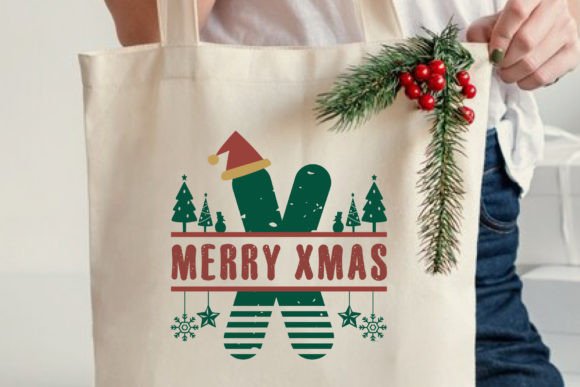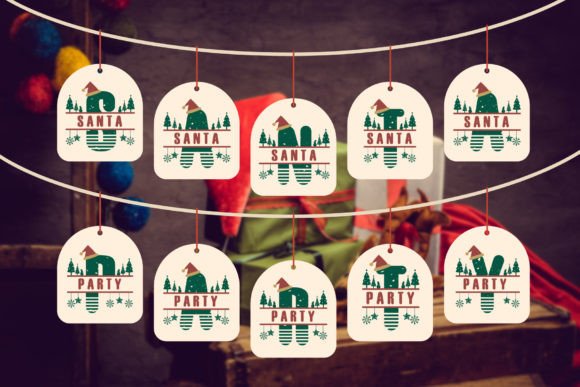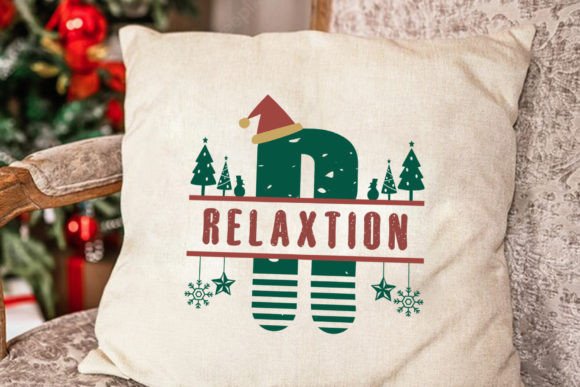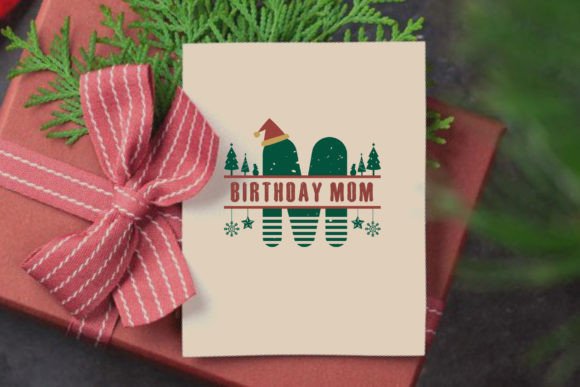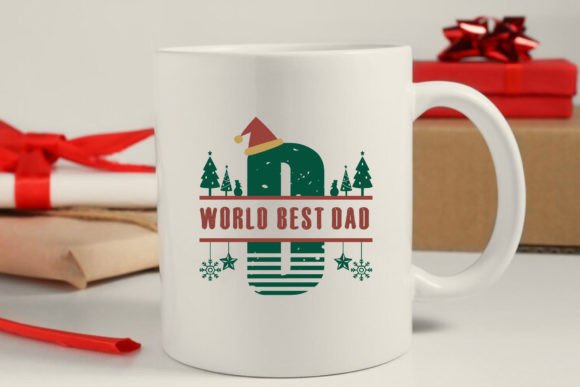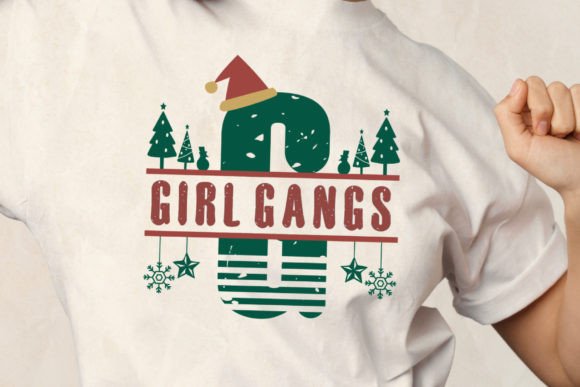
Introduction to Retro Monogram Font
Retro Monogram font is a clean vintage-style retro Monogram font.
Inspired by the retro typography and typography of the 70s and 80s, anything written in this font is instantly recognizable and will grab attention It has a unique shape where every corner is softer and more rounded.
Key Features of Retro Monogram Font